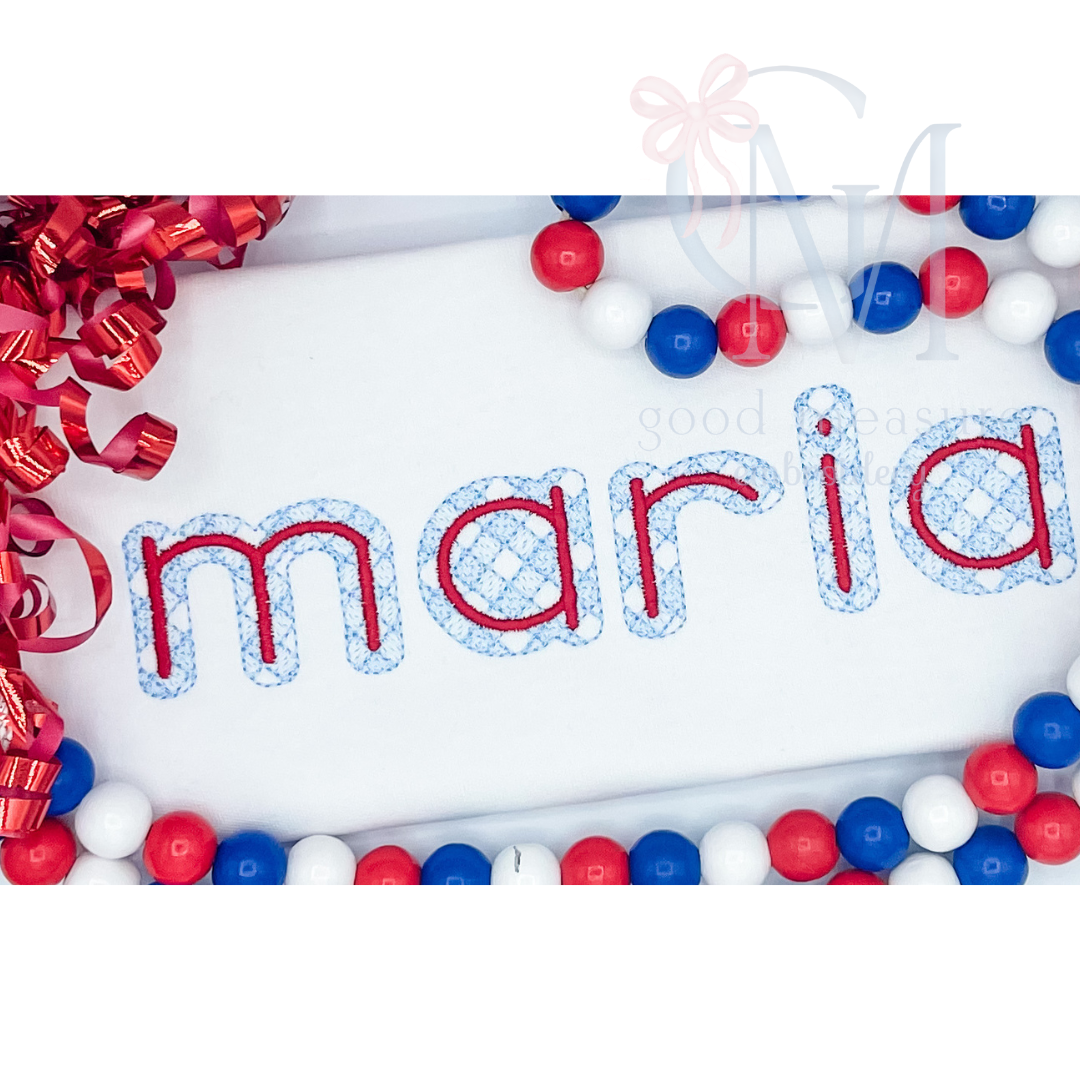
The Gingham Font Embroidery Design
This file includes lowercase letters (a-z) for the Gingham sketch font - a two toned sketch satin font in sizes 1.25, 1.5, 2, 2.5, and 3 inches.